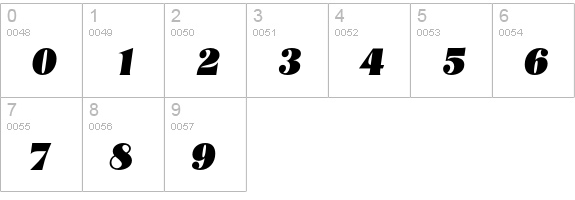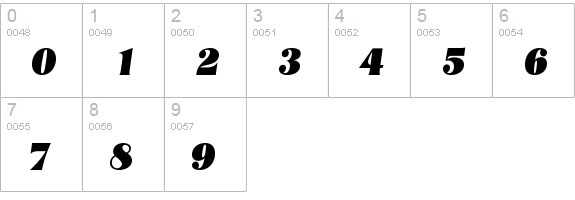
Nashville-HvyItl Font Details
Nashville-HvyItl font is a bold and striking typeface that exudes a sense of modern sophistication and elegance. With its heavy weight and italicized style, this font is perfect for making a bold statement in your design projects. The sharp lines and clean curves of Nashville-HvyItl font make it ideal for creating eye-catching headlines, signage, and branding materials. The best part? Nashville-HvyItl font is available for free download at FontsMarket.com. Now you can easily access this premium font without breaking the bank. Whether you're a designer looking to add a touch of class to your work or a business owner in need of a standout logo, Nashville-HvyItl font has got you covered. Download it today and elevate your designs with this sleek and stylish typeface.